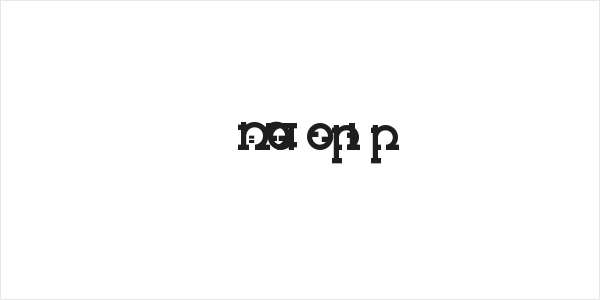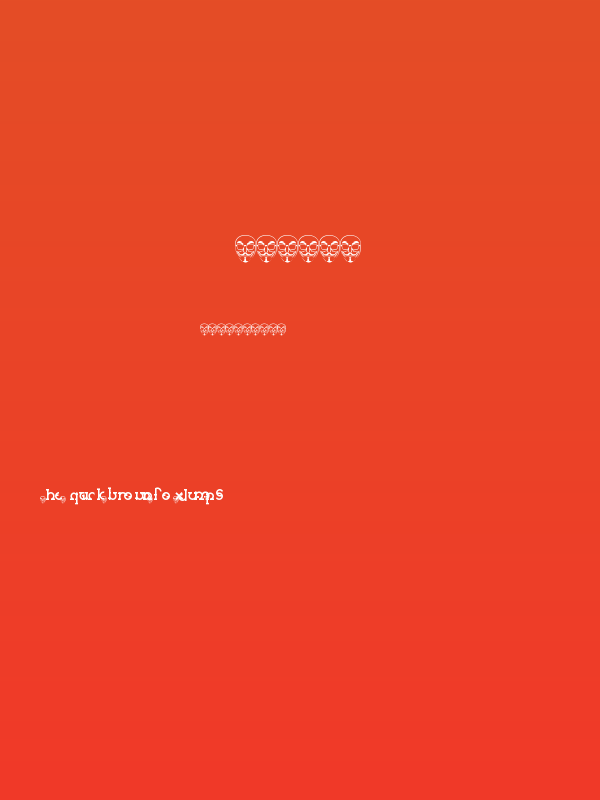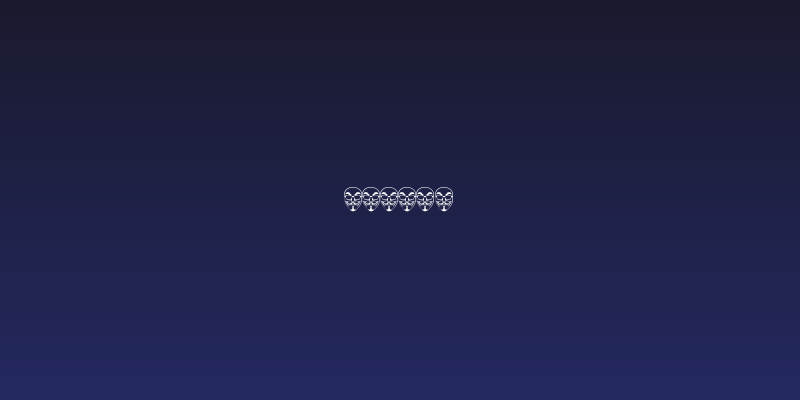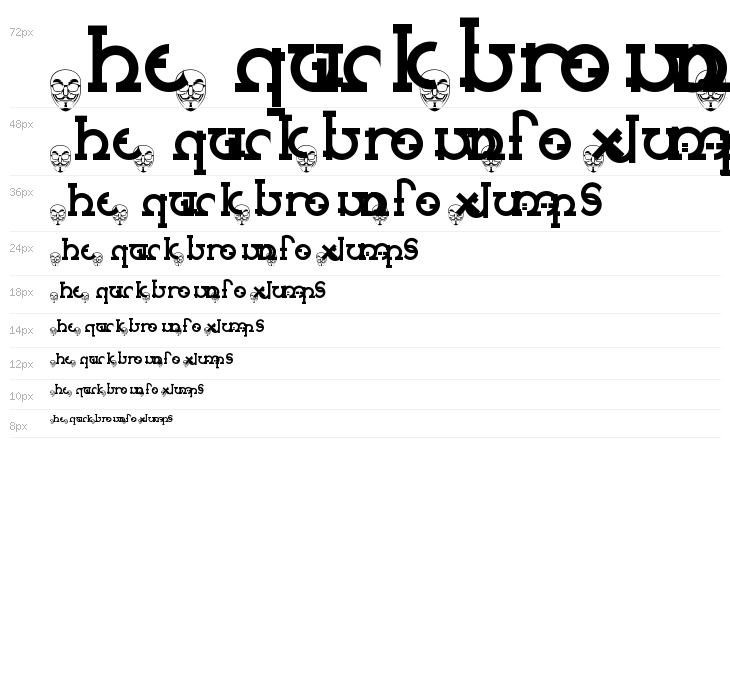
maopip Font
maopip Description
This font features a bold and striking design with a unique, modern twist. The characters are constructed with thick, geometric lines and sharp angles, giving them a strong, impactful presence. The uppercase and lowercase letters maintain a consistent style, with some characters featuring distinctive curves and loops that add a touch of elegance. The font's overall appearance is both contemporary and slightly futuristic, making it suitable for projects that require a bold statement. The spacing between characters is relatively tight, which enhances its compact and cohesive look.